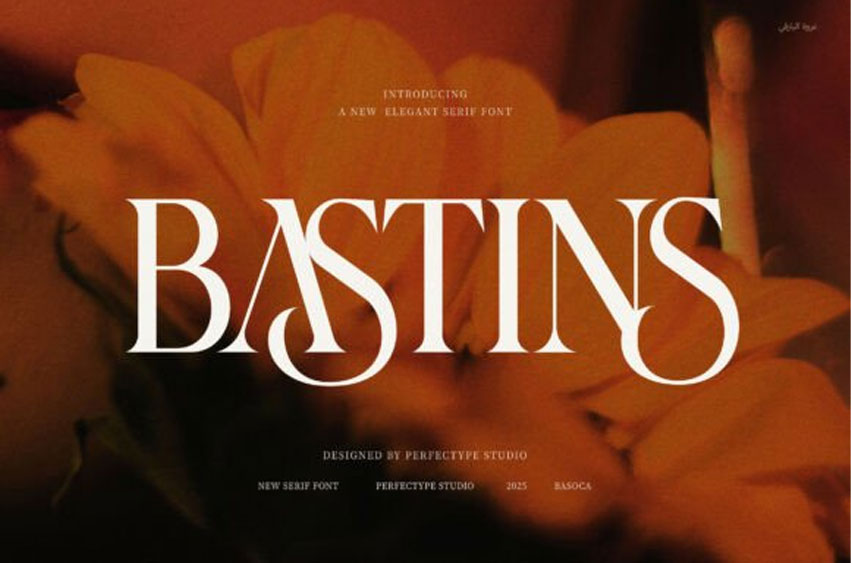
Bastins Font
Bastins Font Elegant Serif Font is a sleek and refined serif typeface designed to elevate your branding projects. Its modern style pairs perfectly with a proportional shape, making it a versatile choice for any design need. Whether you’re crafting logos, websites, or magazine layouts, Bastins adds a touch of sophistication that stands out.
This font includes functional ligatures that enhance readability and visual appeal. Thanks to these smooth letter connections, your text will flow naturally, creating an inviting and polished look. It’s perfect for businesses and creatives who want their designs to communicate professionalism and beauty simultaneously.
Moreover, Bastins excels in diverse applications—ideal for branding, advertising, boutique visuals, food packaging, and more. Its balanced proportions ensure consistency across all media, while its elegant serif style adds a classic yet modern charm.
If you aim to create a lasting impression, Bastins is designed to meet your expectations. Its clean lines and thoughtful design allow for seamless integration in both digital and print media. The font’s versatility also supports various industries, helping your brand maintain a cohesive and attractive presence.